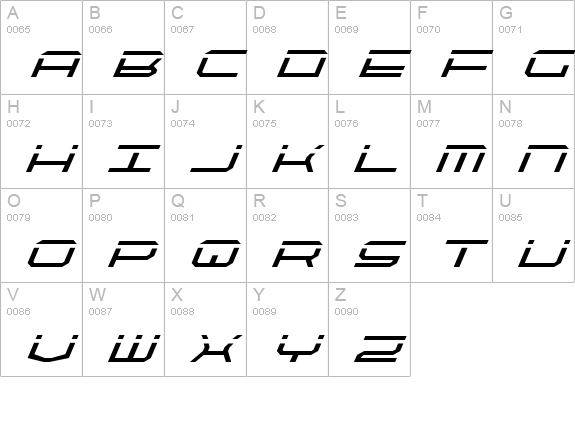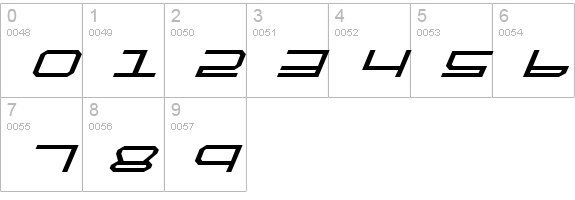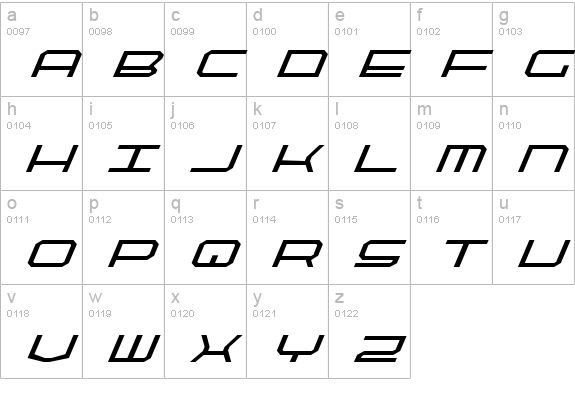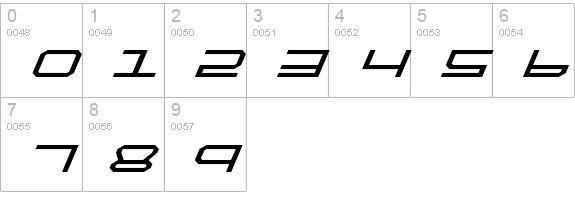
QuickTech Italic is a distinctive, italic variant in the QuickTech typeface family \xE2\x80\x94 well suited to design and typography projects.
Introducing QuickTech Italic, a sleek and sophisticated font that effortlessly combines modernity with professionalism. With its clean lines and elegant curves, QuickTech Italic is the perfect choice for projects that require a touch of sophistication and contemporary flair. Designed with versatility in mind, this font is suitable for a wide range of applications, from branding and advertising to web design and editorial projects. Its italicized style adds a dynamic and stylish touch, making it ideal for conveying a sense of energy and movement. QuickTech Italic is a free font that can be easily downloaded from FontsMarket.com. As a freely available resource, it provides designers, professionals, and enthusiasts with the opportunity to enhance their creative endeavors without compromising on quality or accessibility. Whether you're designing a logo, creating a website, or working on a print project, QuickTech Italic is sure to elevate your work to the next level. Its clean and modern aesthetic will catch the eye and leave a lasting impression on your audience. So why wait? Download QuickTech Italic from FontsMarket.com today and unlock the potential to create stunning visuals that truly stand out. Embrace the freedom of creativity with this exceptional font and let your ideas shine.